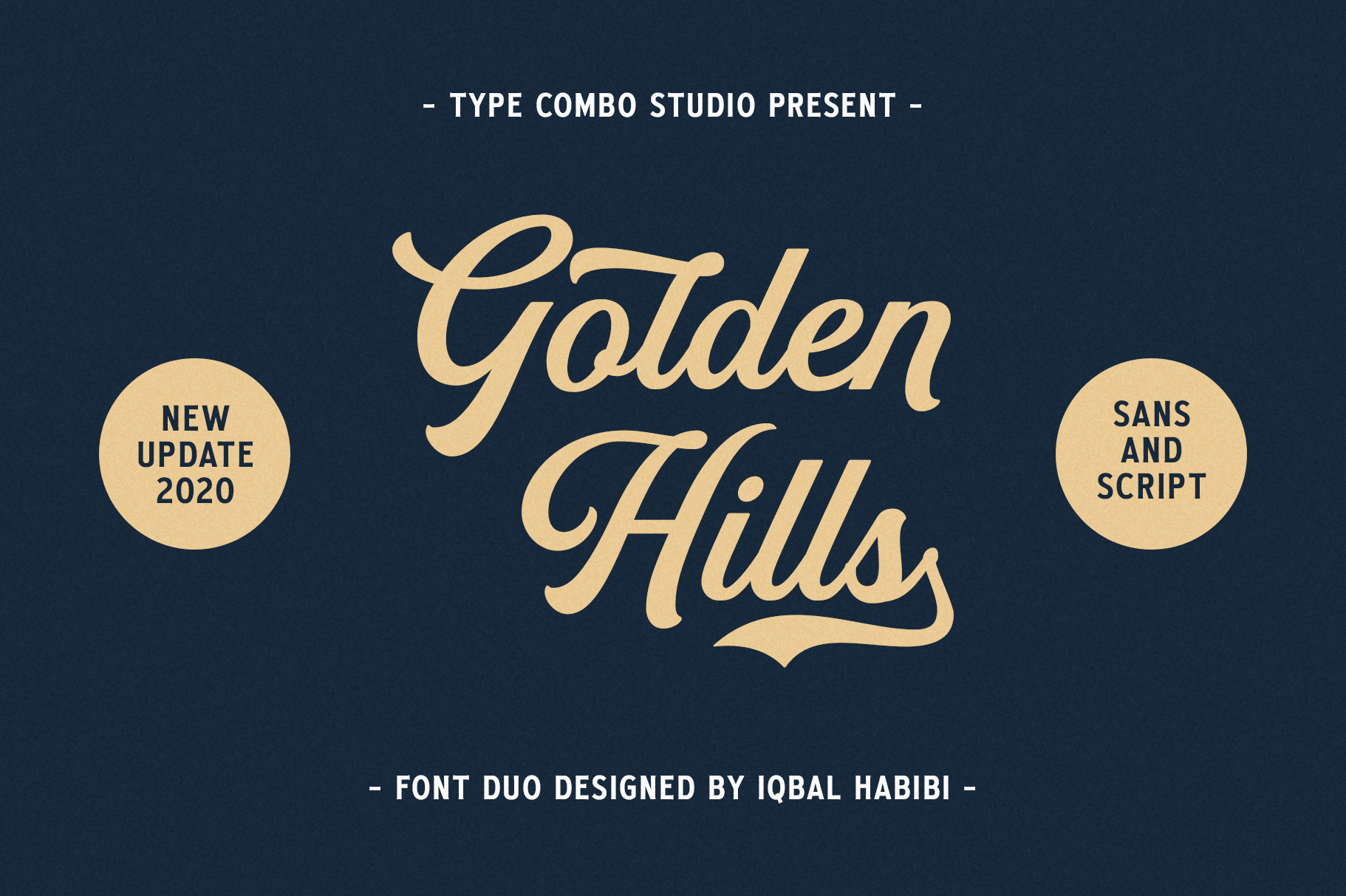
Golden Hills - Font Duo
Golden Hills is a Font Duo. The script one inspired by the beauty of hand lettering works and the sans serif one as a font pair. So, you can pair these 2 fonts to create such a cool combination. Great for creating lettering, logotype, T-shirt design, packaging design, signboard, poster, and many more.
Golden Hills features :
-Alternates and Ligatures
-Number, Punctuation, and Symbols
-Accented Character (ÁÂÄÀÅÃÆÇÐÉÊËÈÍÎÏÌÑÓÔÖÒØÕŒÚÛÜÙẀŴẄẂÝŶŸỲáâäàåãæçđéêëèíîïìñóôöòøõœúûüùẃŵẅẁýŷÿỳ)